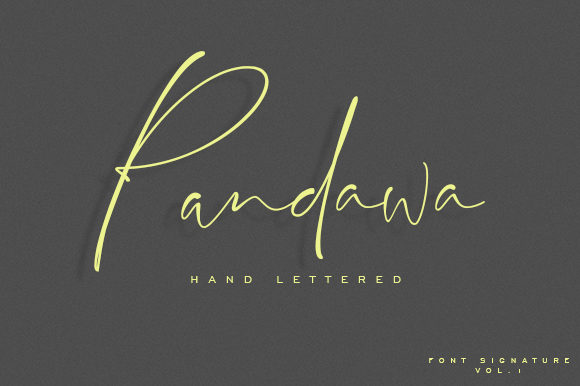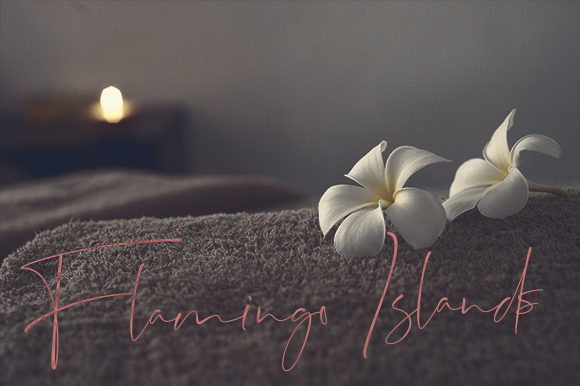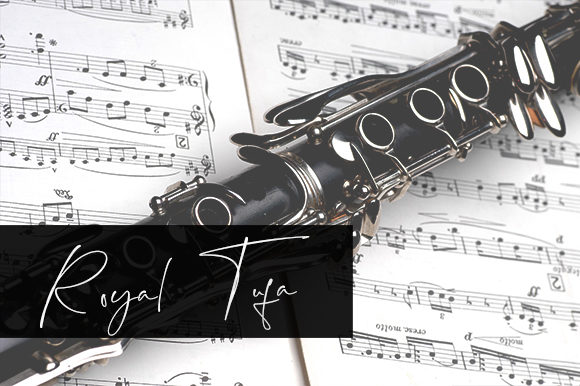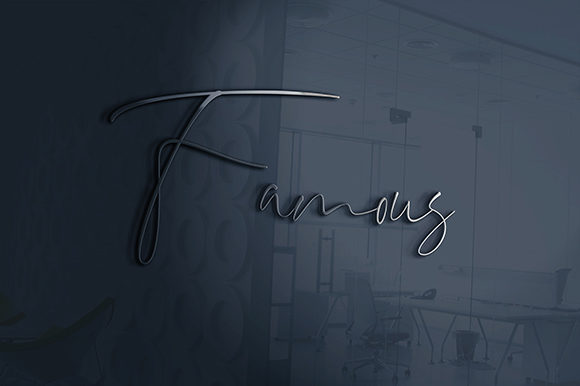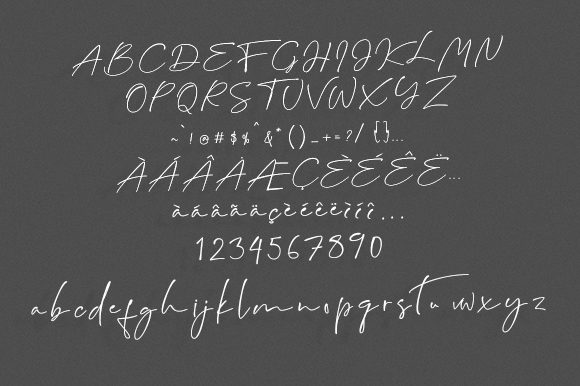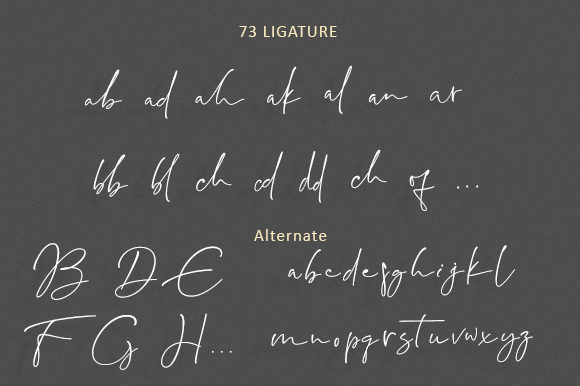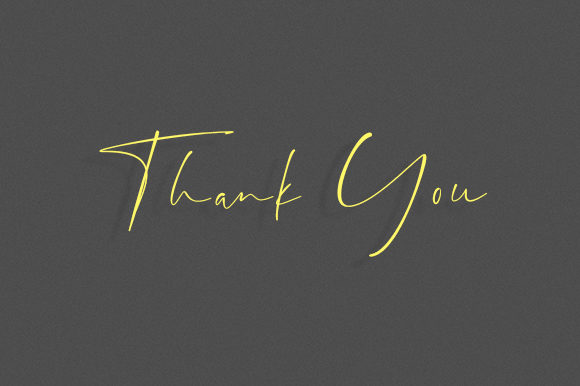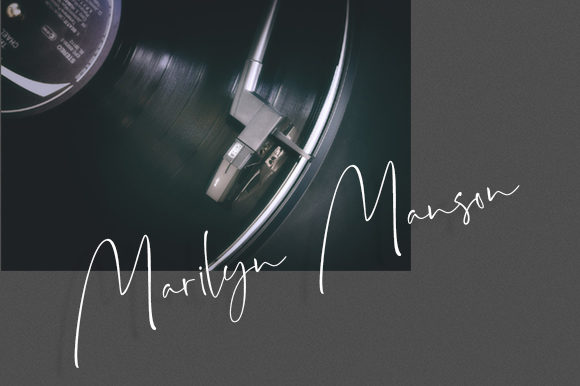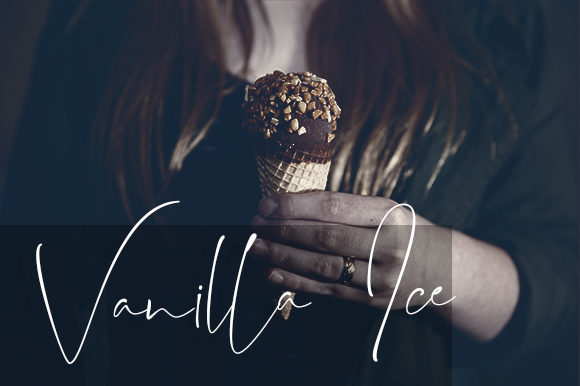
HomeScript FontsPandawa Font Script Fonts Pandawa Font FacebookXPinterestWhatsApp Pandawa Font Poster 2 Pandawa Font Poster 3 Pandawa Font Poster 4 Pandawa Font Poster 5 Pandawa Font Poster 6 Pandawa Font Poster 7 Pandawa Font Poster 8 Pandawa Font Poster 9 About Pandawa Font Pandawa is a beautiful and light handwritten font with an authentic spark! DOWNLOAD NOW People also explored Love Holiday Font Leluhur Bold Font Enchanting Script Font Feeling Blessed Font Codeplay Font Lourdes Klenthing Font Amelia Esthery Font Nathasyia Script Font 326 0 TagsPandawa Font Previous articleGetsu Magic FontNext articleValyrianth Font LEAVE A REPLY Cancel reply Comment: Please enter your comment! Name:* Please enter your name here Email:* You have entered an incorrect email address! Please enter your email address here Website: Save my name, email, and website in this browser for the next time I comment. Personal Use Free Fifty Five Personal Use Free Read more about this font Valentine Chips Personal Use Free Read more about this font Bethania Personal Use Free Read more about this font Einstaint Personal Use Free Read more about this font BLOG Top 7 Google Fonts Alternatives for Faster and Privacy-Friendly Web Design (2025) Top 7 Google Fonts Alternatives for Faster and Privacy-Friendly Web Design (2025) When it comes to web typography, Google Fonts has long been the go-to... Fonts That Capture the Spirit of New York City To increase your work productivity, choose the most readable fonts. Best Fonts for T-Shirt Design – Top 2025 Picks